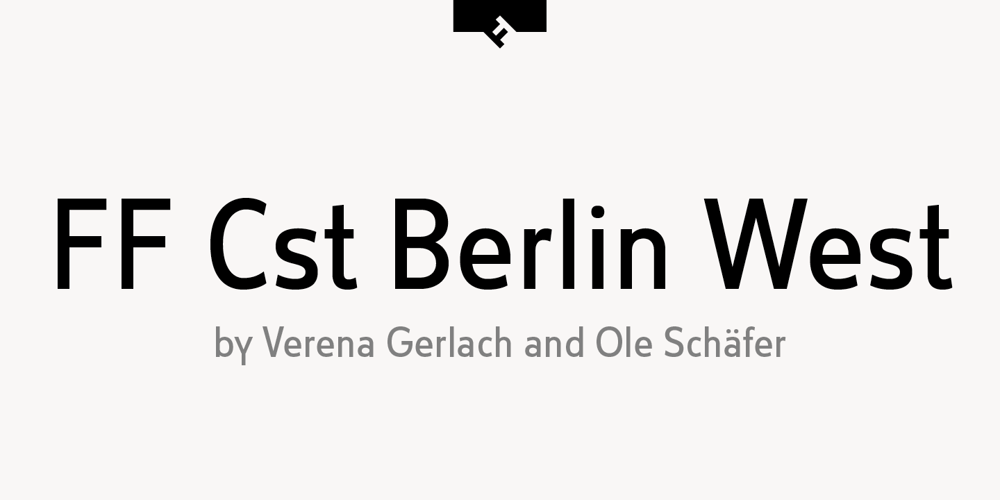
FF Cst Berlin West Font Family was designed by Verena Gerlach, Ole Schäfer and published by FontFont. FF Cst Berlin West contains 4 styles and family package options. German type designers Verena Gerlach and Ole Schäfer created this sans FontFont in 2000. The family contains 4 weights and is ideally suited for editorial and publishing, poster and billboards as well as wayfinding and signage. FF CST Berlin West provides advanced typographical support with features such as alternate characters, case-sensitive forms, and stylistic alternates. It comes with proportional lining and tabular lining figures. This FontFont is a member of the FF creative industriesty Street Type super family, which also includes FF CST Berlin East.